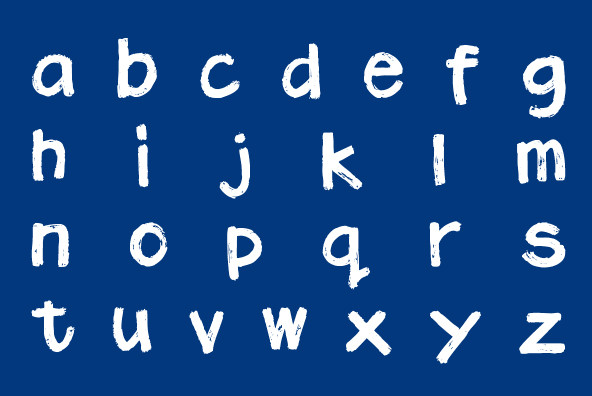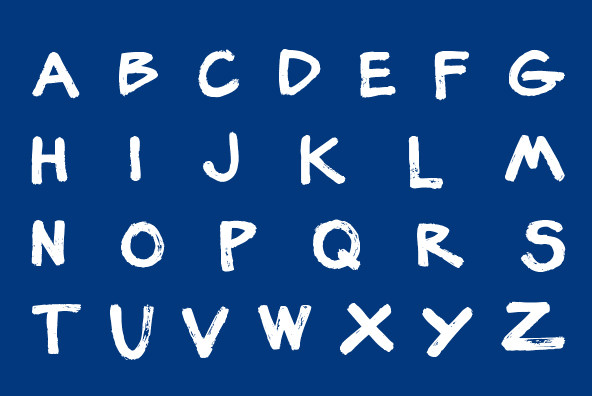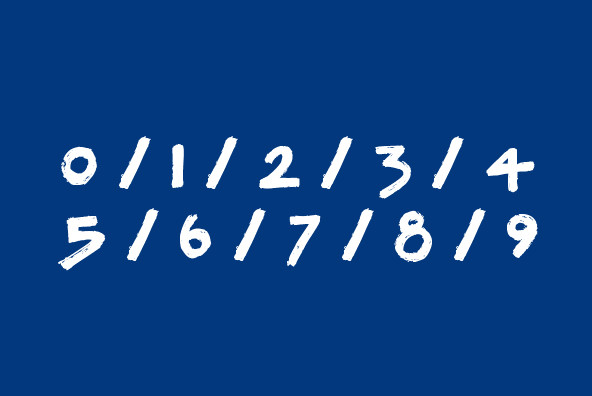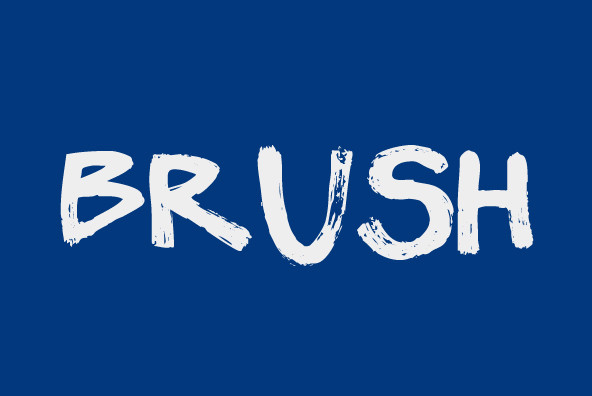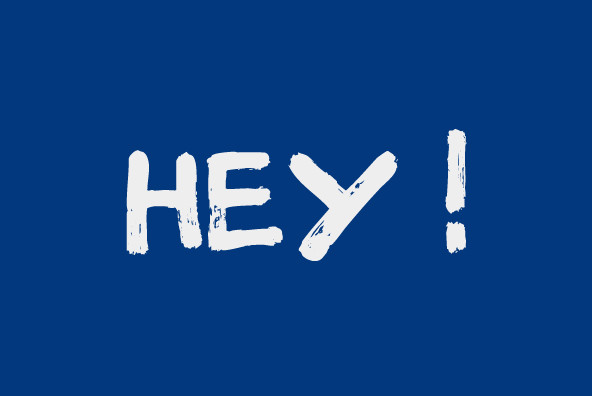
Plz Print Brush
Foundry: Outside The Line
Plz Print Brush is a good solid font for posters, headlines and accent words like - SALE! It gives that slightly irregular look of handlettering.